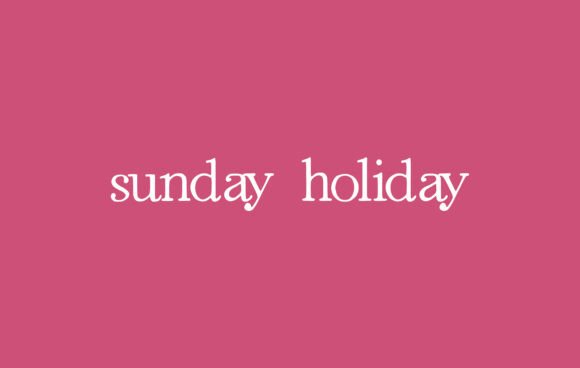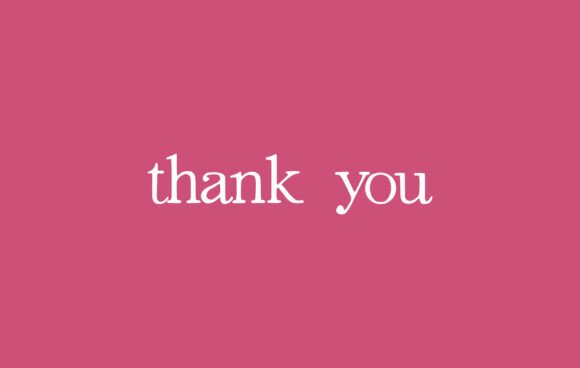
Unleash Your Creative Side with Beauty Font
Have you ever stared at a blank page, waiting for the perfect font to bring your design to life? That’s exactly what happened to me last week, and I’m still buzzing from the excitement. I was working on a project, searching for the perfect font to capture the essence of a romantic evening. And then, I stumbled upon it – Beauty Font.
Expertly designed to evoke a sense of elegance and sophistication, Beauty Font is more than just a font – it’s an experience. With its legible and beautiful characters, this font is perfect for designers looking to take their creative ideas to the next level. Whether you’re crafting magazine headlines, social media posts, or wedding invitations, Beauty Font is the perfect companion to help you create something truly special.
As a designer, you know how important it is to find the right font to convey your message. That’s why I’m excited to share Beauty Font with you, and show you how it can elevate your designs and leave a lasting impression on your audience.
Key Features of “Beauty Font”
- Unique Characteristics: Beauty Font features a unique blend of elegance and sophistication, with intricate details and subtle flourishes that set it apart from other fonts in its class.
- Language Support: Beauty Font supports a wide range of languages, including Latin, Cyrillic, and Greek scripts, making it a versatile choice for designers and typographers worldwide.
- Style Options: This font family includes multiple styles, including Regular, Italic, Bold, and Bold Italic, allowing designers to choose the perfect fit for their project.
Beauty Font Review
As a designer, I was excited to try out the “Beauty Font” for my latest project. Overall, I found it to be a visually appealing and elegant font. ✨ The curves and lines are well-balanced, making it perfect for creating a sophisticated and feminine aesthetic.
One of the standout features of the “Beauty Font” is its versatility. ✨ It can be used for a wide range of applications, from fashion and beauty branding to luxury packaging and magazine design. The font is also highly customizable, allowing users to adjust the size, color, and style to suit their needs.
- ⚠️ The font may not be suitable for modern or edgy designs, as it has a more classic and vintage feel.
- ⚠️ The font family is relatively small, with only a few weights and styles available.
- ⚠️ Some users may find the font to be too ornate or elaborate, which can make it difficult to read at smaller sizes.
Overall, I would recommend the “Beauty Font” to designers who are looking for a sophisticated and elegant font for their luxury or fashion branding projects. While it may have some limitations, the font’s versatility and customization options make it a great choice for a wide range of applications.
Beauty Font is ideal for creating elegant and sophisticated designs, such as:
- Fashion and beauty product packaging
- High-end branding and marketing materials